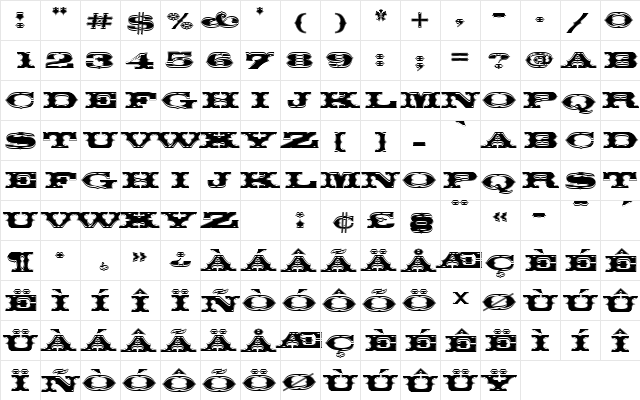
ThunderbirdDRegIn1 Regular
Design Context for ThunderbirdDRegIn1 Typeface
ThunderbirdDRegIn1 is a composed and adaptable typeface that performs quietly and consistently across a wide range of design contexts.